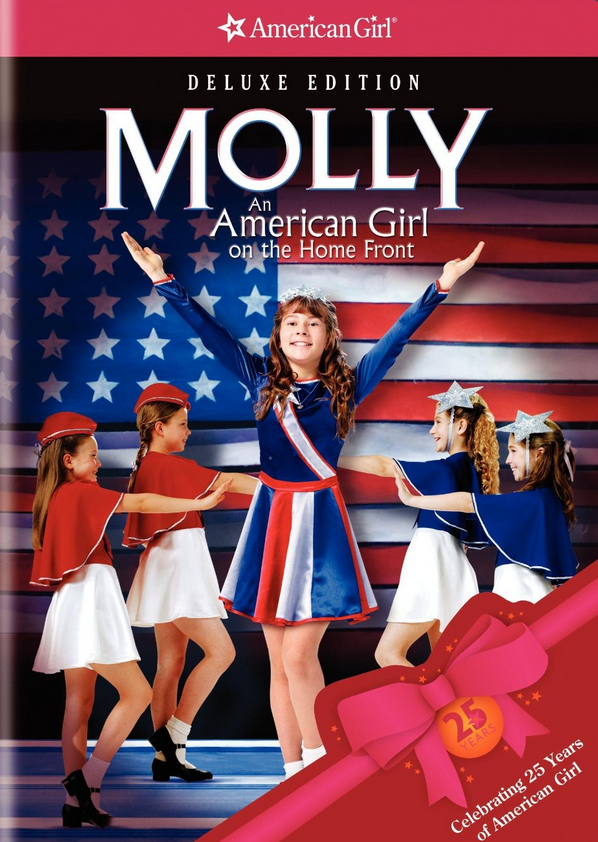
Molly : An American Girl Font
AdventureAn American Girl on the Home Front is a movie based on the popular American Girl doll line, which follows the story of Molly, a young girl growing up during World War II, and her adventures and challenges during this time.
The film title in the poster uses the Albertus font, designed by Berthold Wolpe for the Monotype Corporation between 1932-1940. The font was named after the German philosopher and theologian, Albertus Magnus.